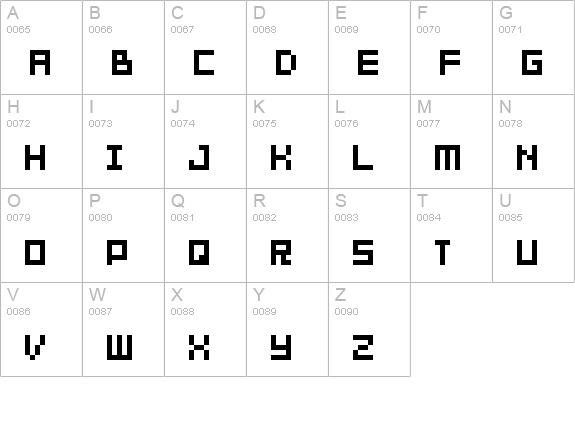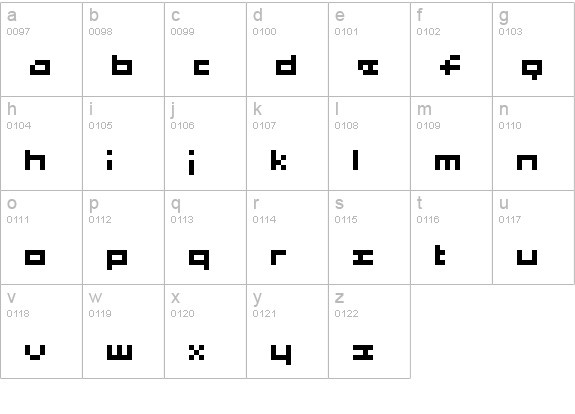
The 04b 03b font is a stylish and modern typeface that adds a touch of creativity to any design project. Its sleek lines and bold characters make it perfect for headlines, logos, and other eye-catching elements. This font exudes a sense of sophistication and elegance, making it ideal for both digital and print applications. What's even better is that the 04b 03b font is available for free download at FontsMarket.com. This means you can easily access this versatile font and use it in your projects without any cost. Whether you're a graphic designer, a web developer, or simply someone looking to enhance their creative work, the 04b 03b font is a fantastic choice that won't break the bank. Download it today and elevate your designs with this beautiful typeface.